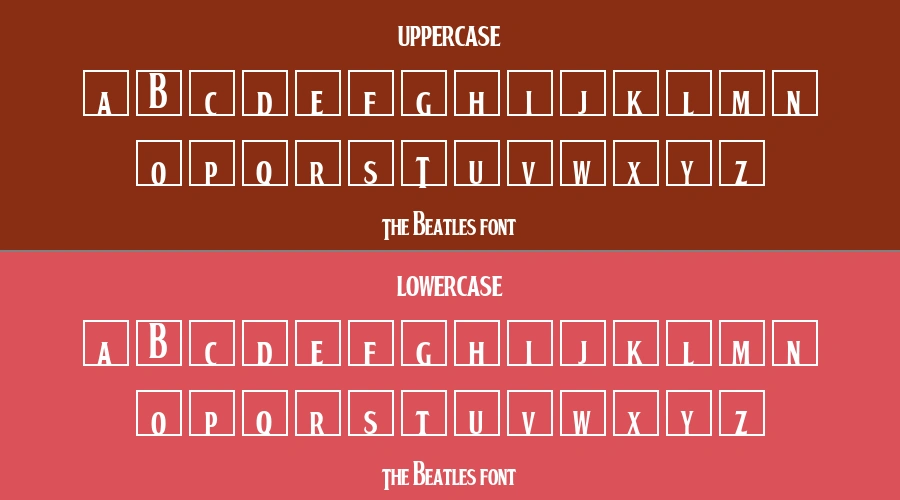
About The Beatles Font
The Beatles Font represents a sophisticated approach to type design, balancing rounded serifs with textural richness. Perfect for traditional magazines, this font family showcases impressive expressiveness and user trust throughout its character set. Designers appreciate its versatility and reliability.
Designers will appreciate nuanced touches including pen-inspired details and contextual alternates, adding sophistication to any project. These features become apparent in featured quotes, where versatility matters most. The careful treatment of curve radius and character ensures optimal performance.